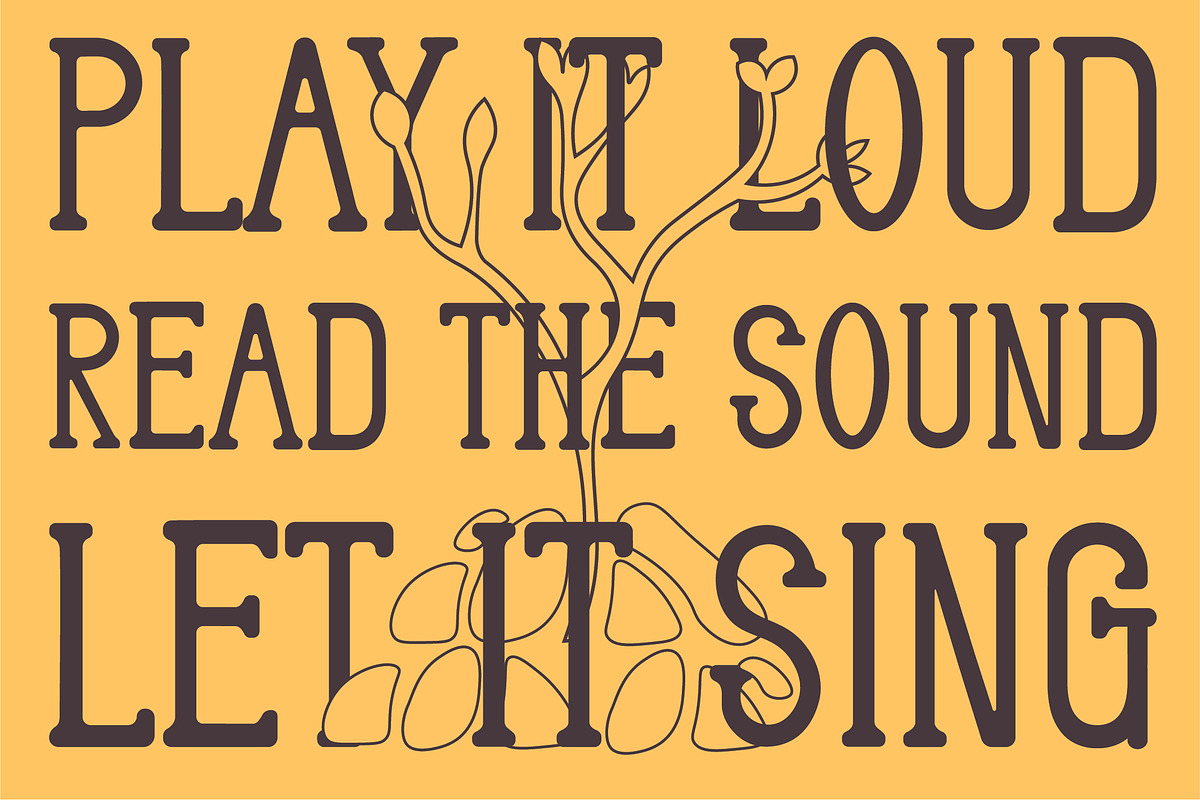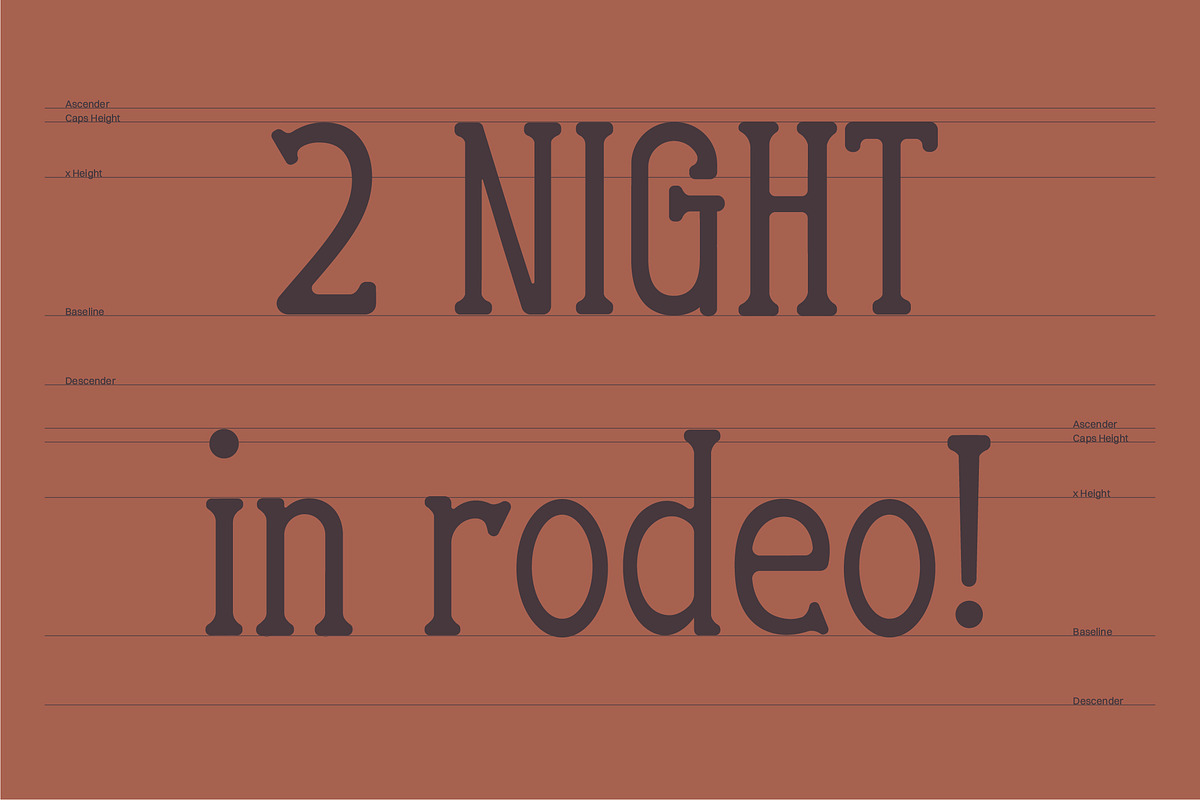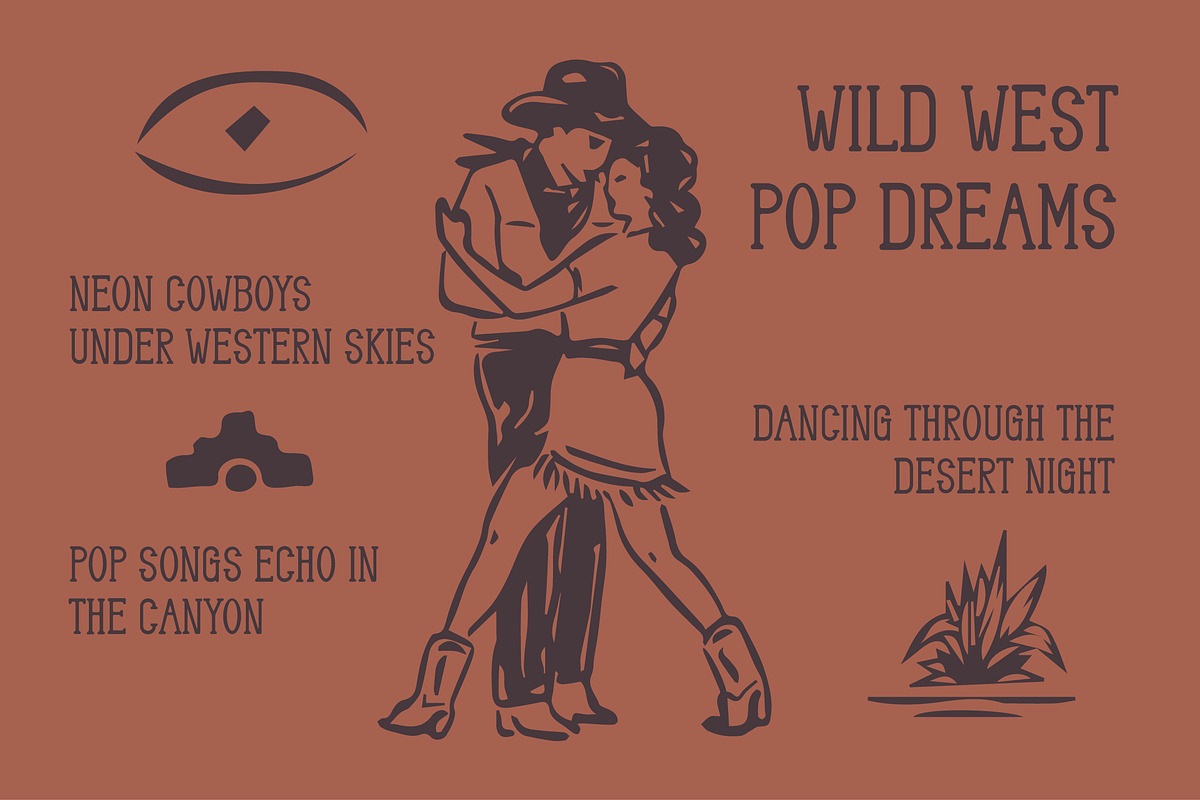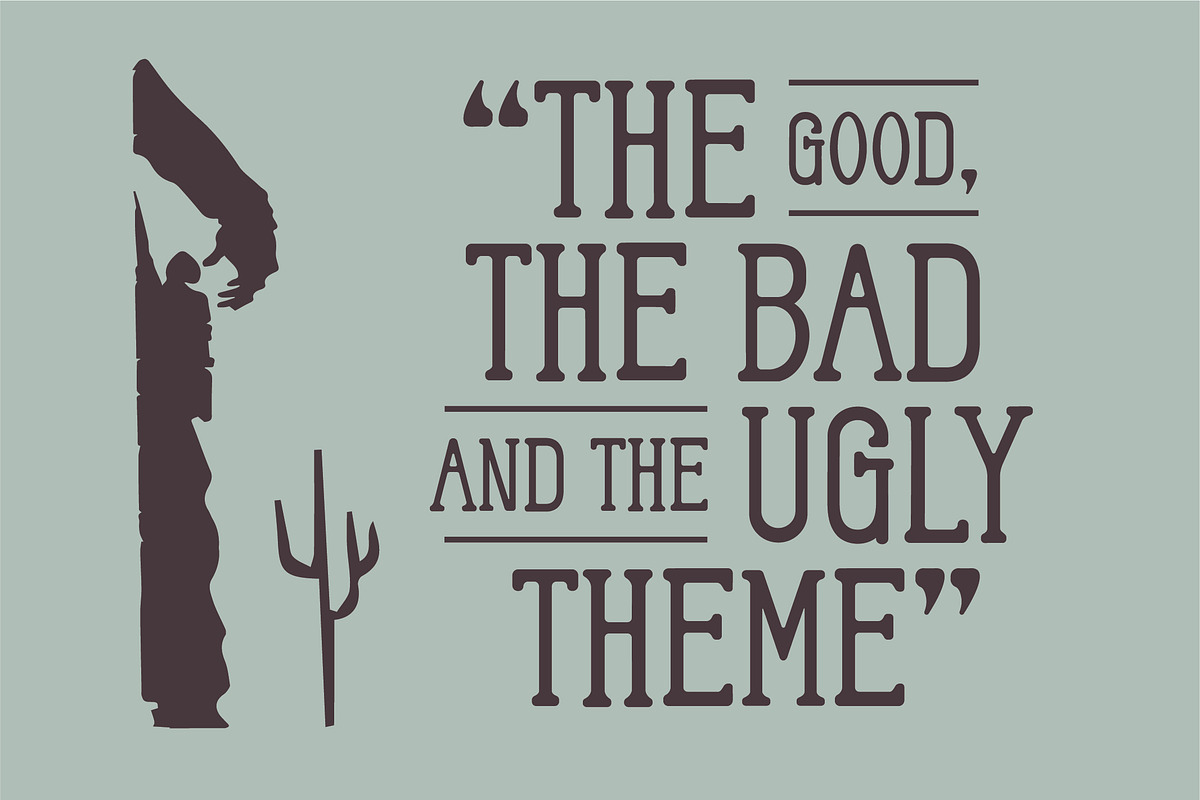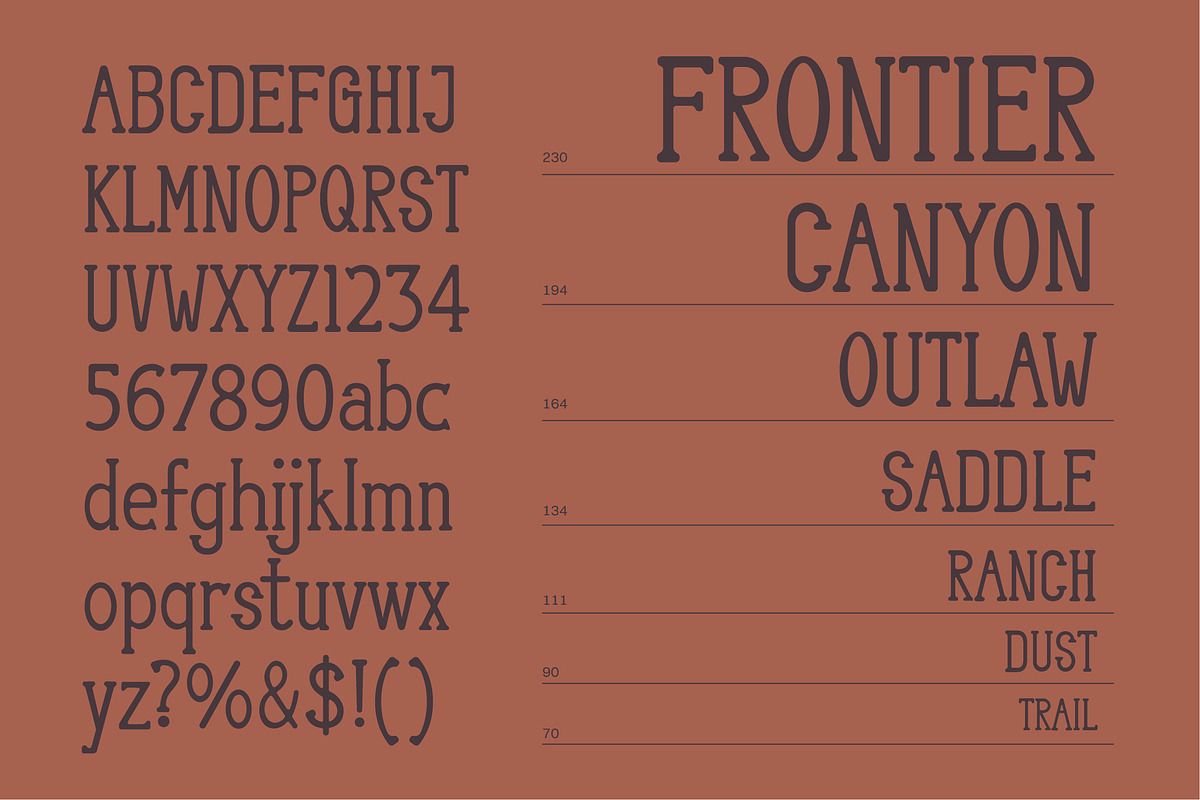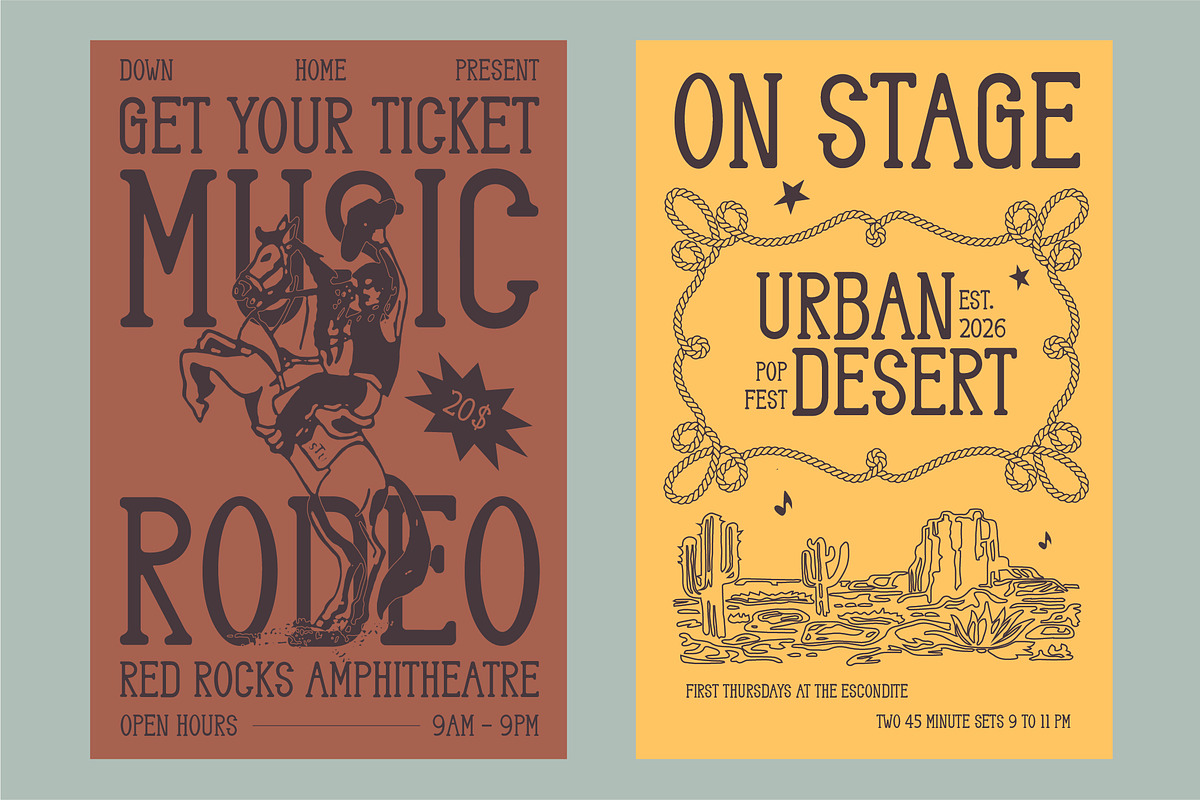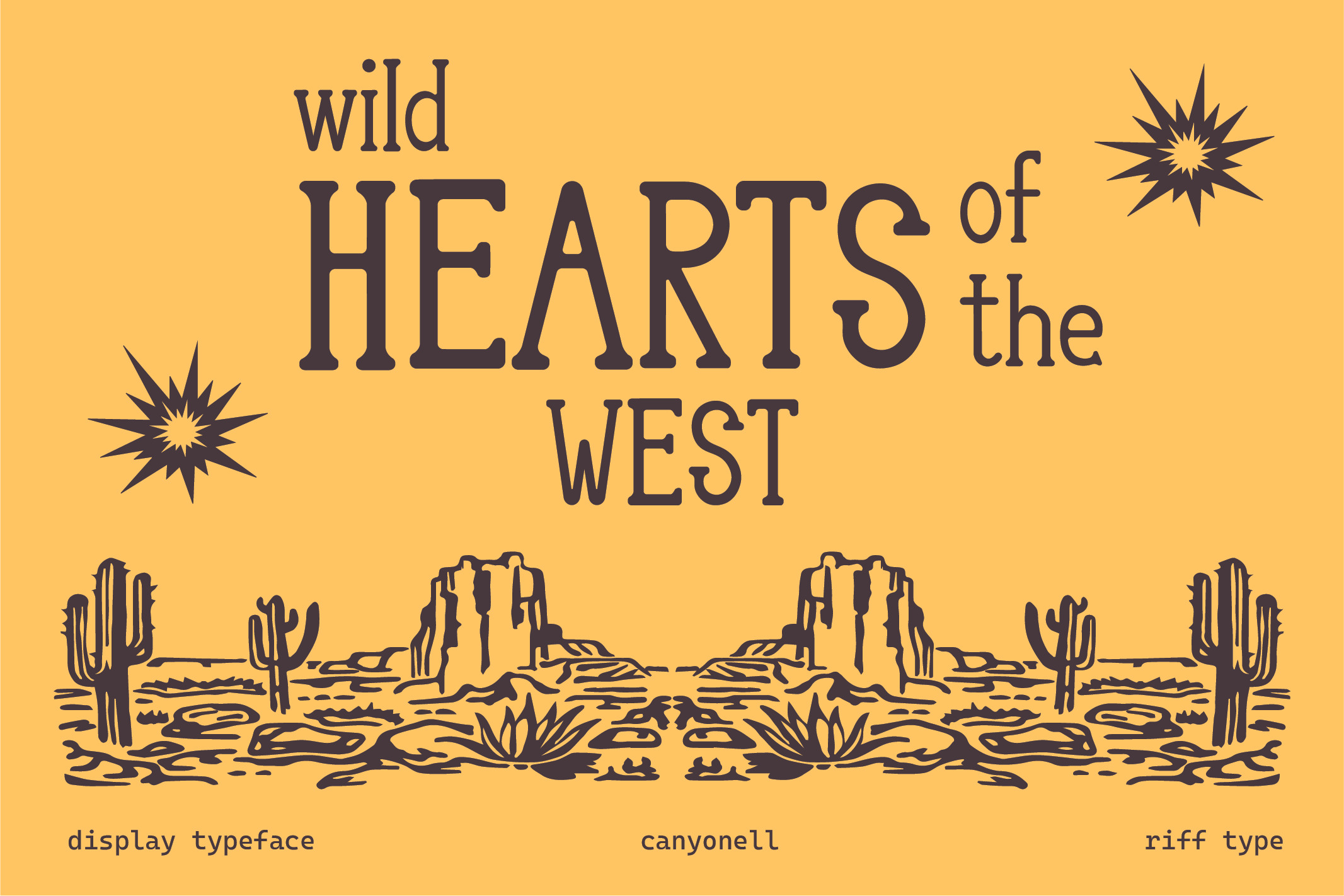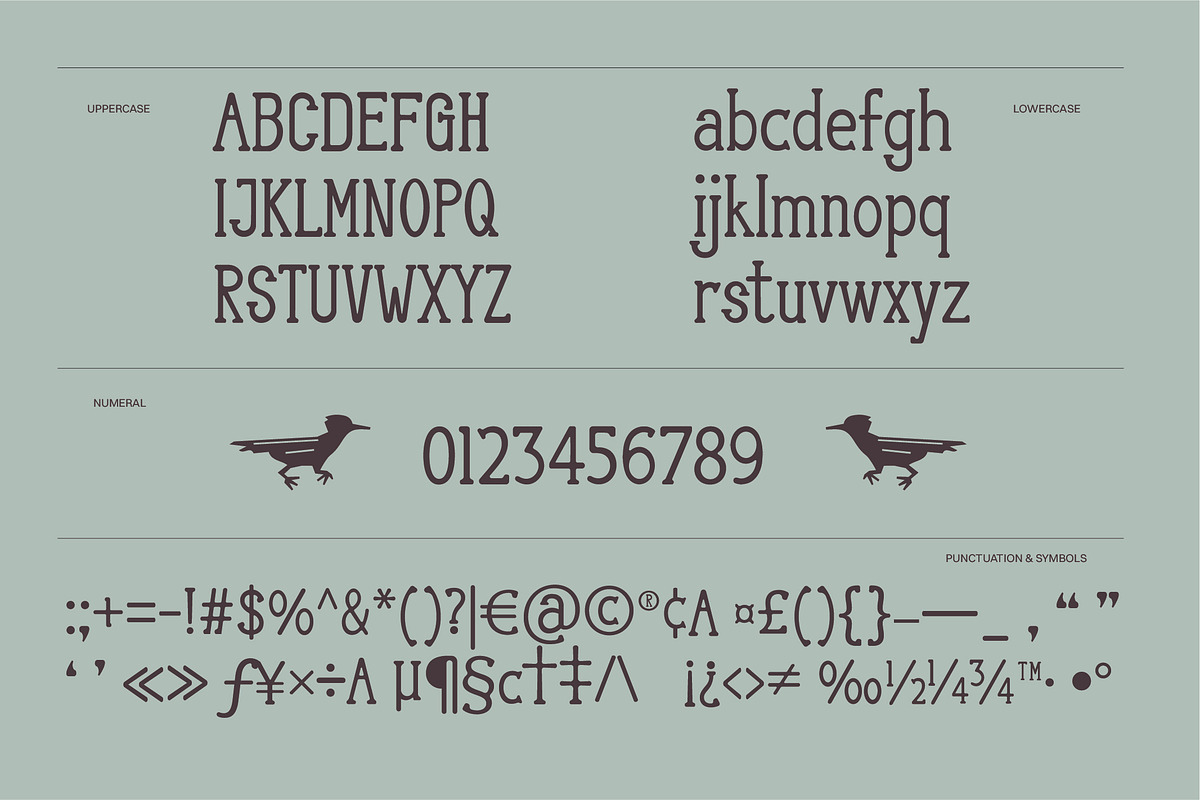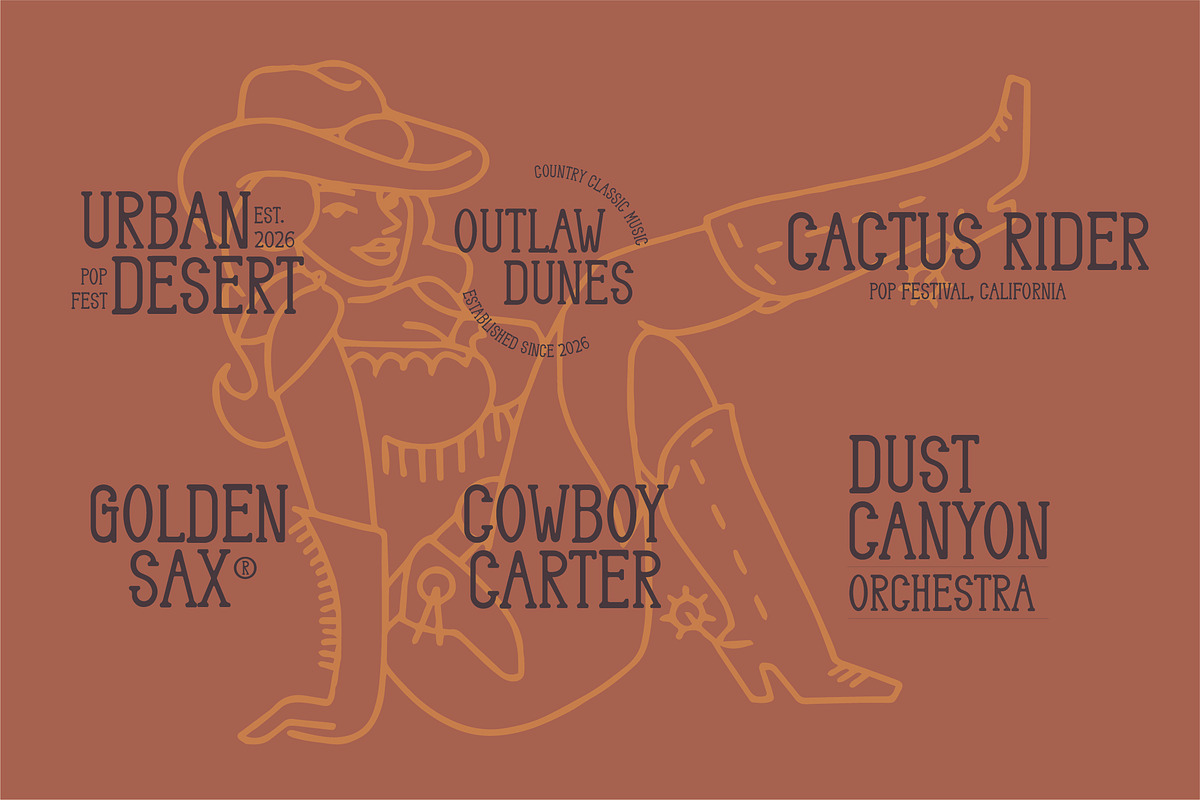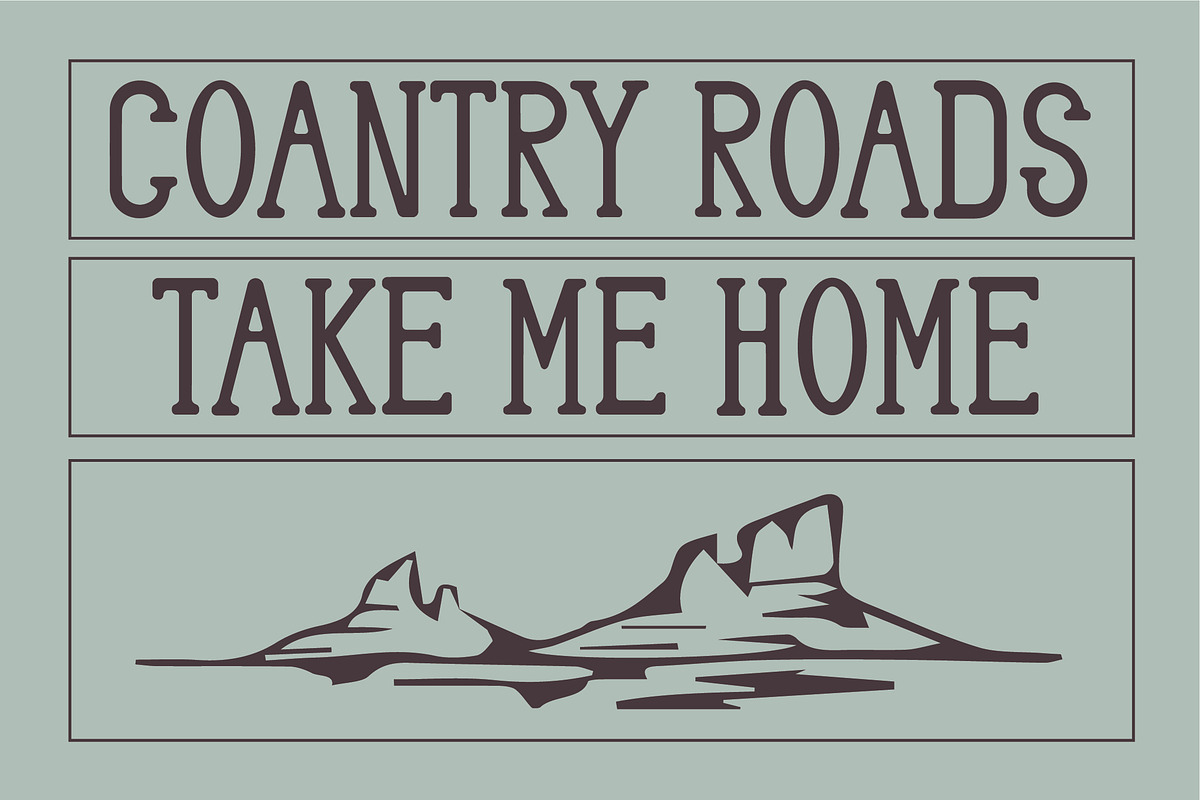
Canyonell - Country Display Typeface
Canyonell is a rustic display font that echoes the soulful, storytelling spirit of American roots music. Like the warm strum of an acoustic guitar at sunset, this typeface channels the timeless charm of Country, Folk, and Bluegrass melodies, translating the rugged poetry of the Wild West into tangible typography.